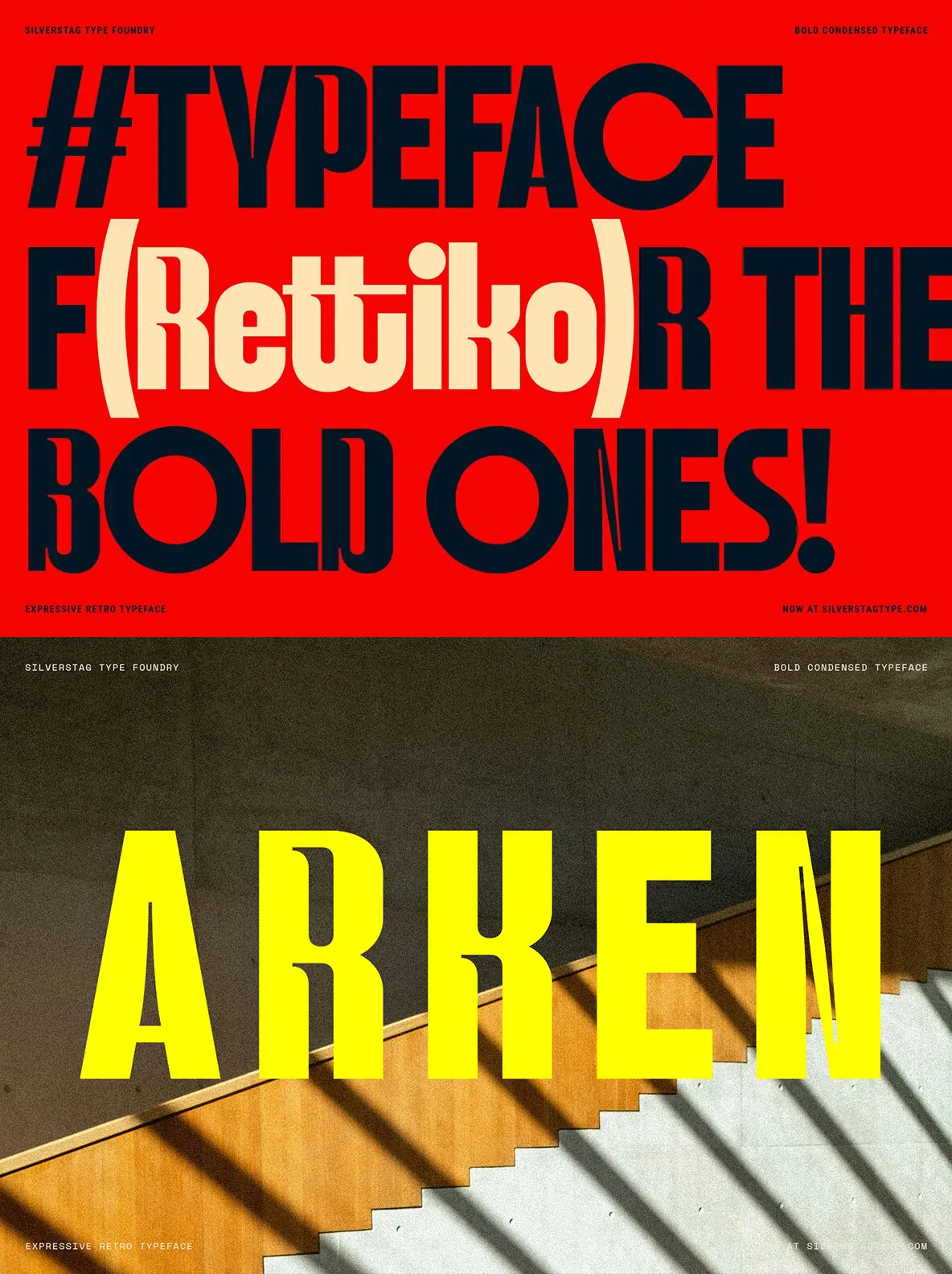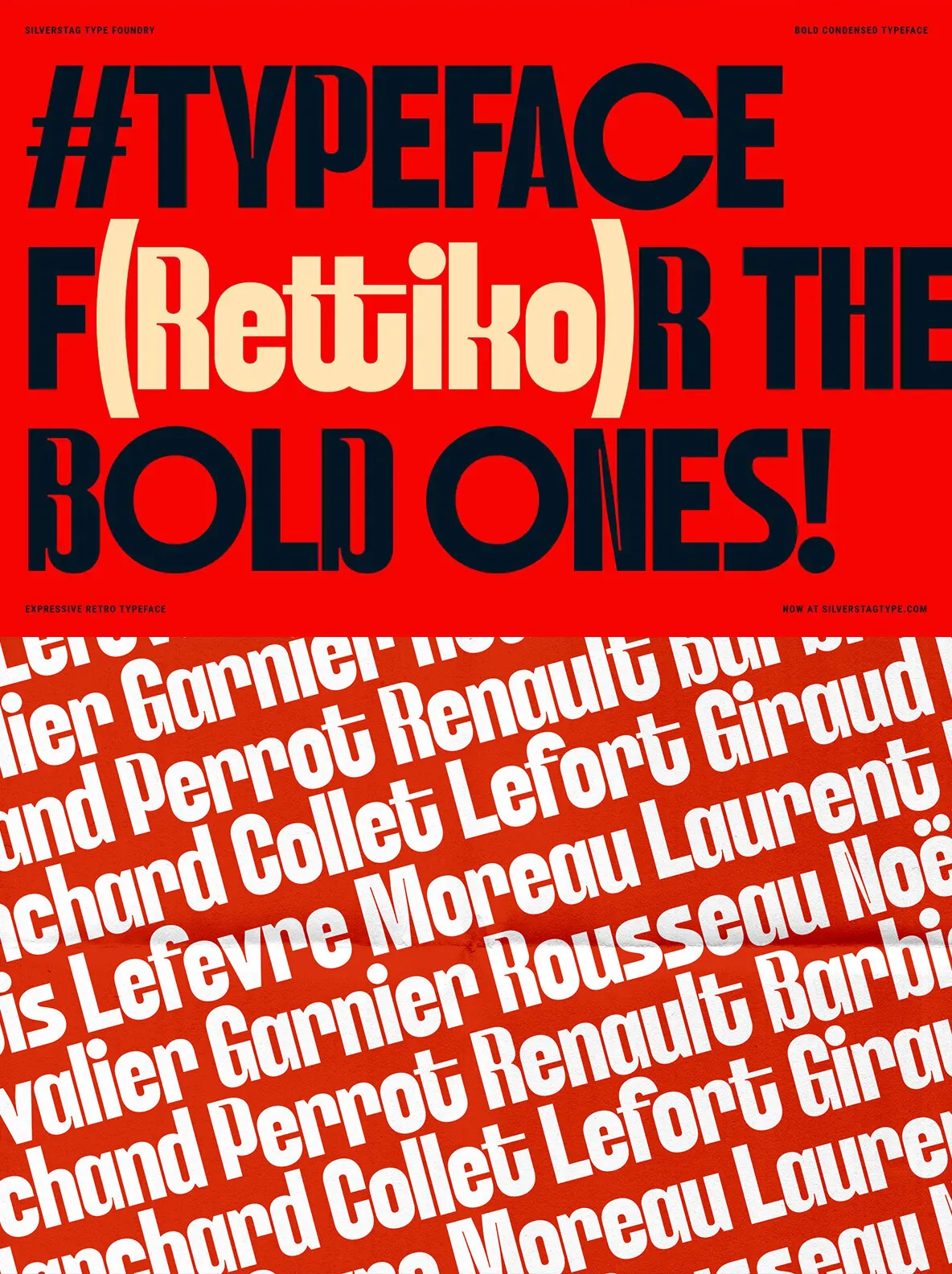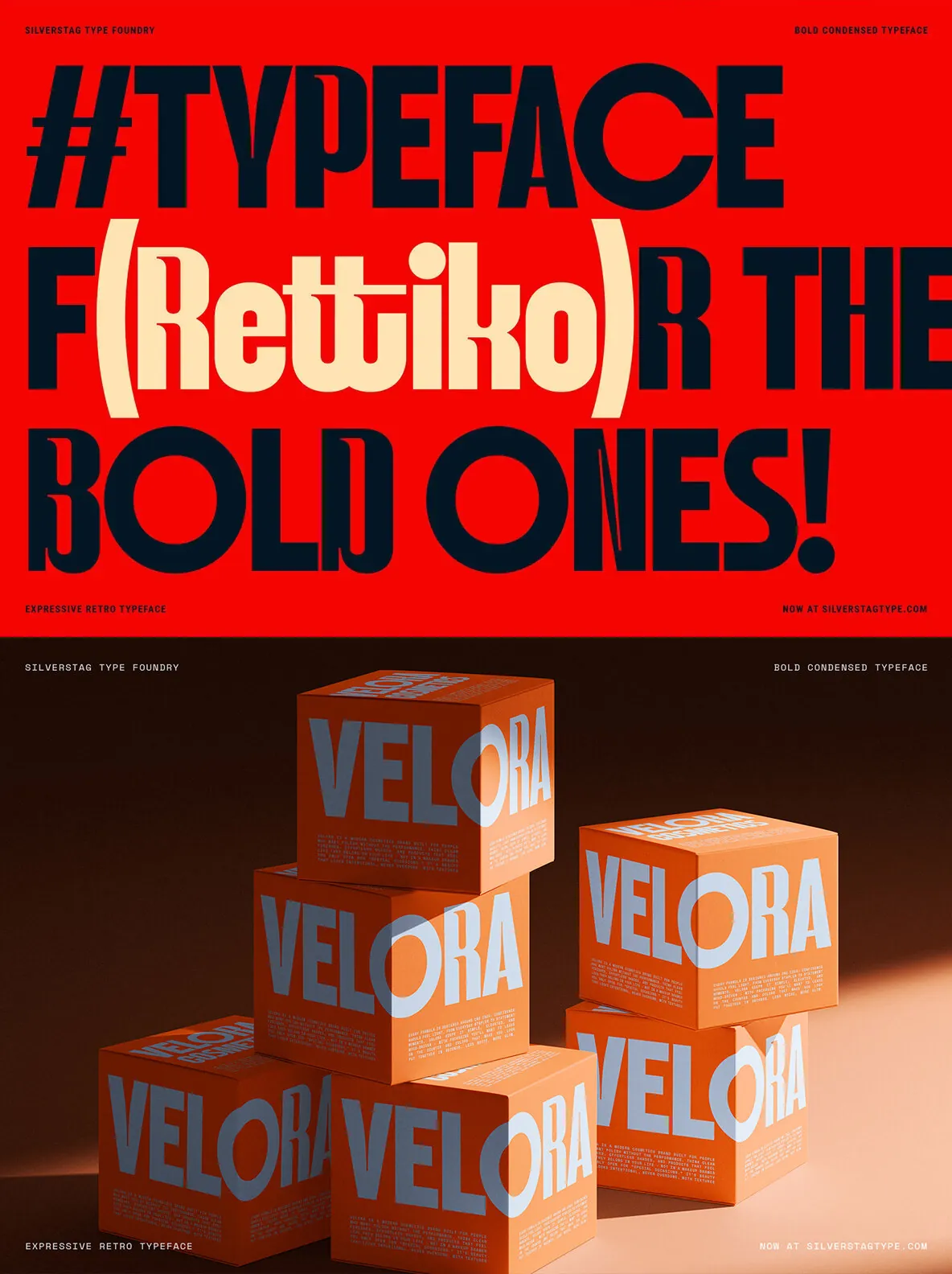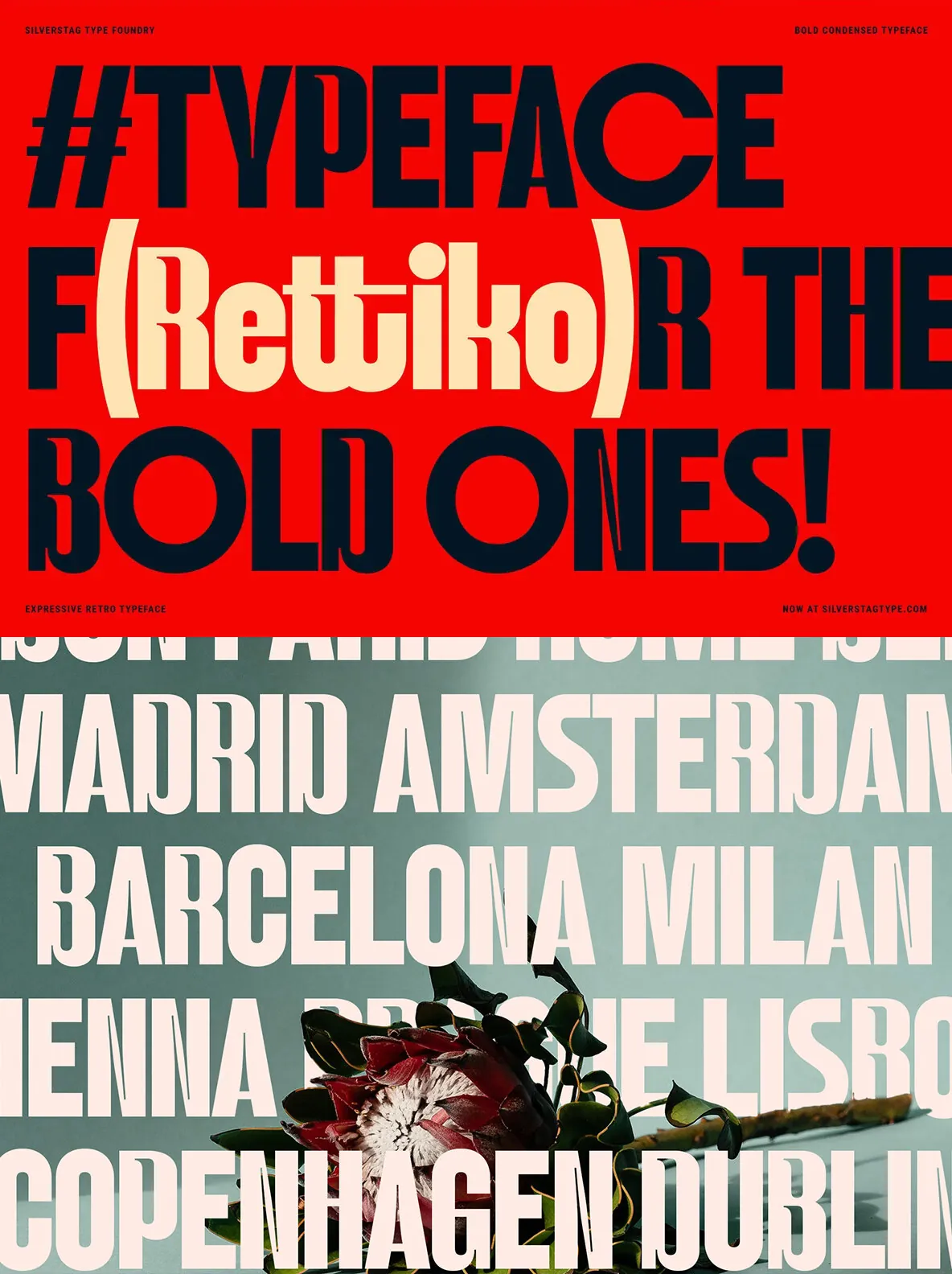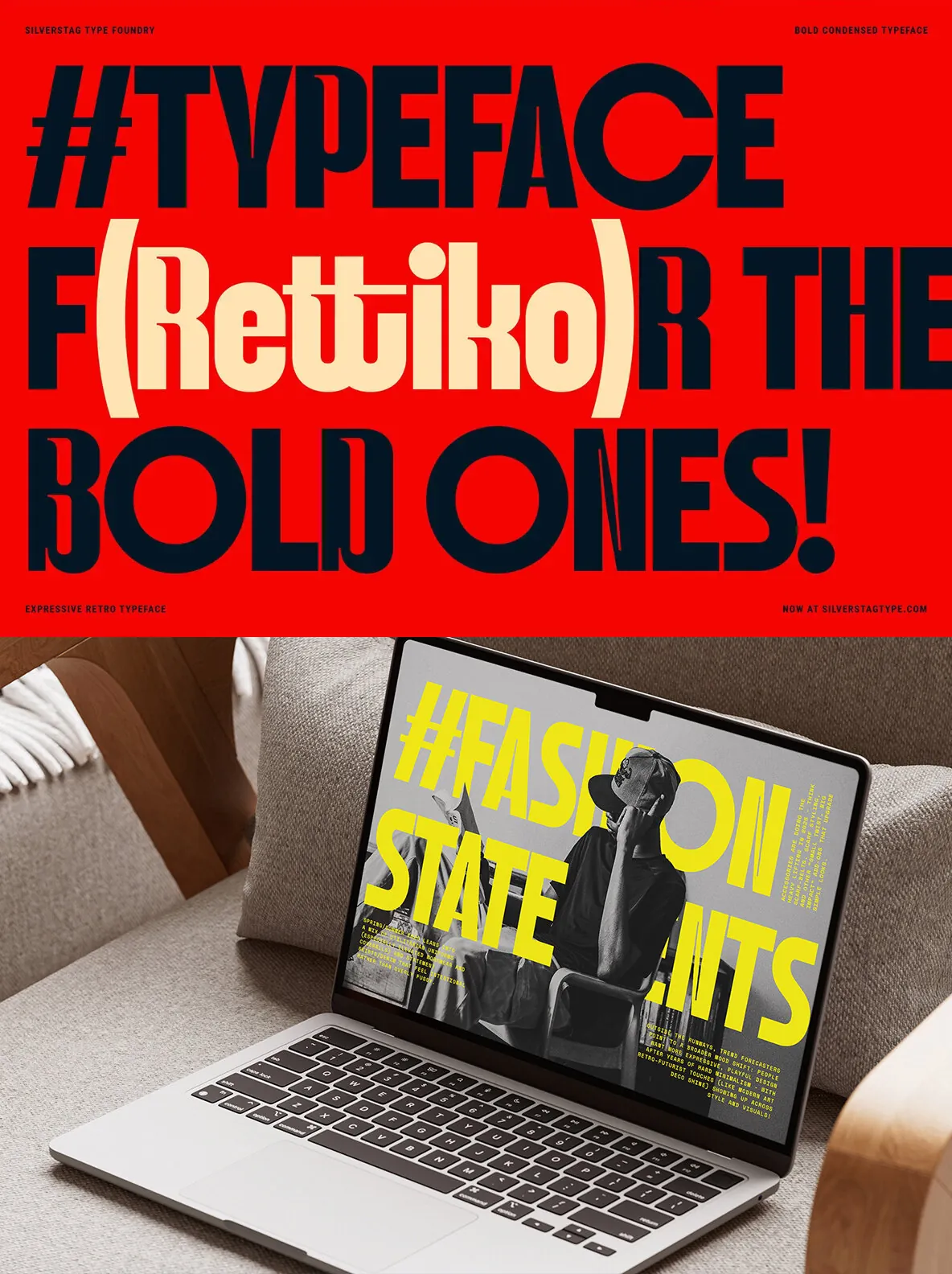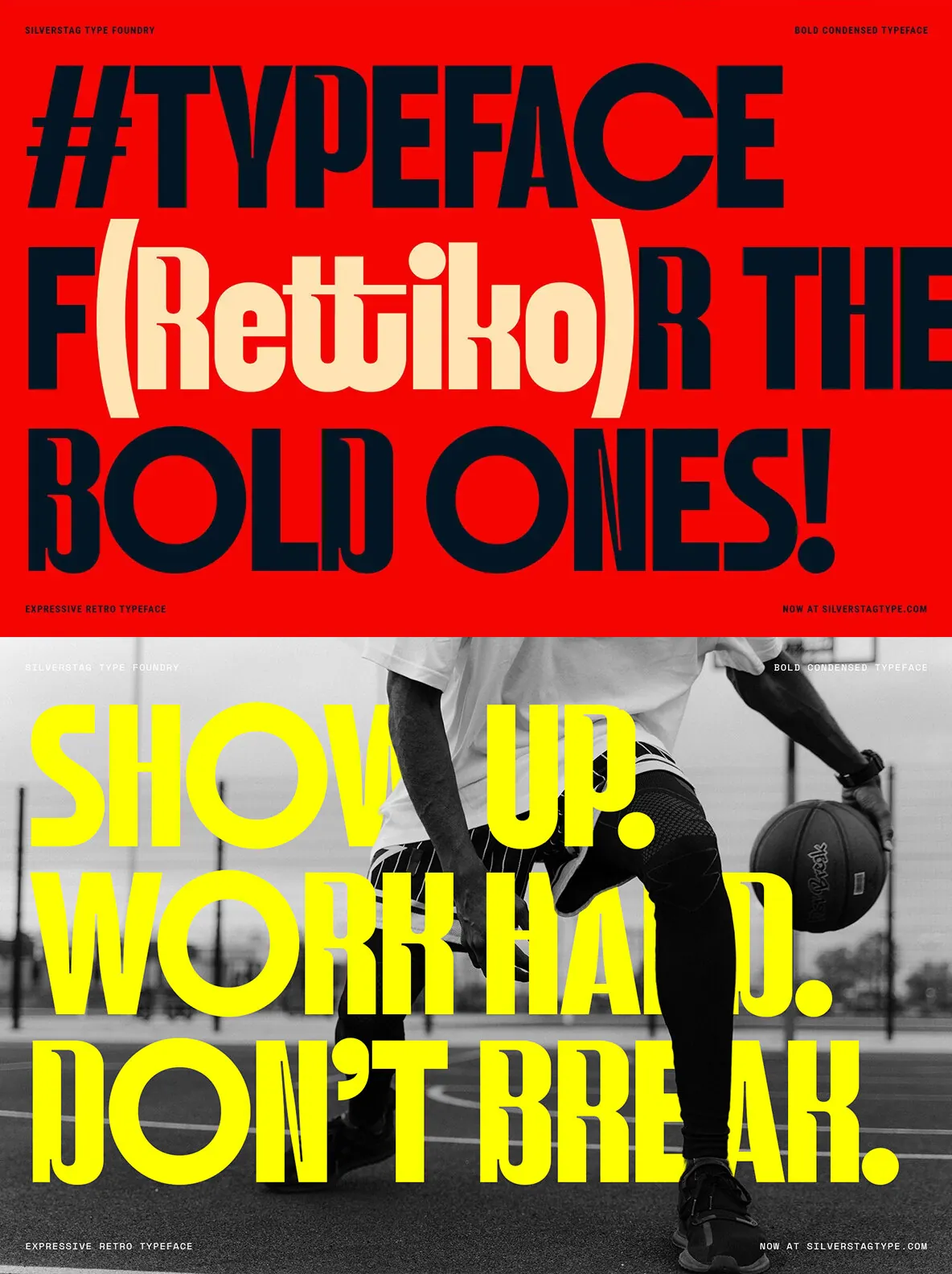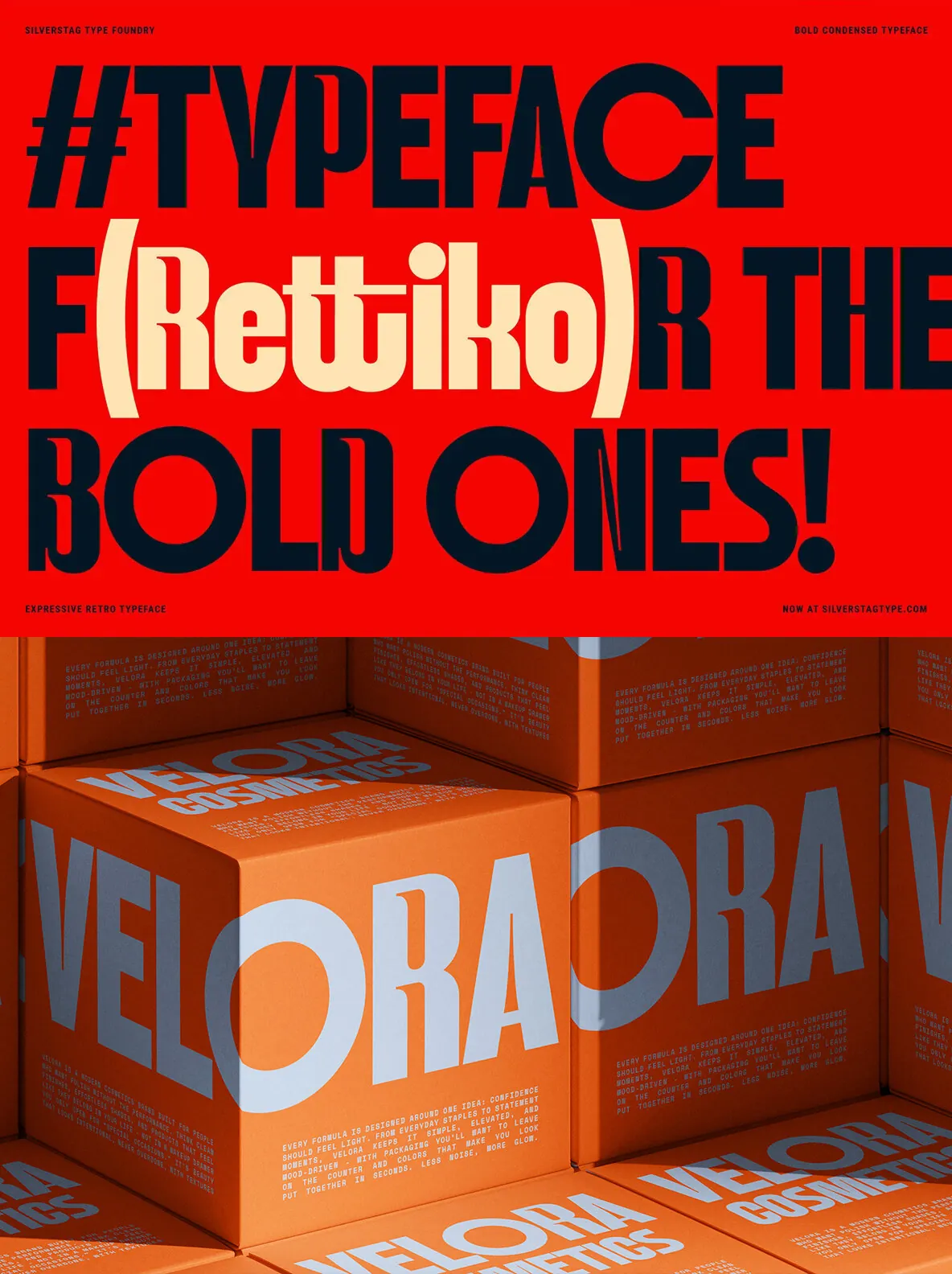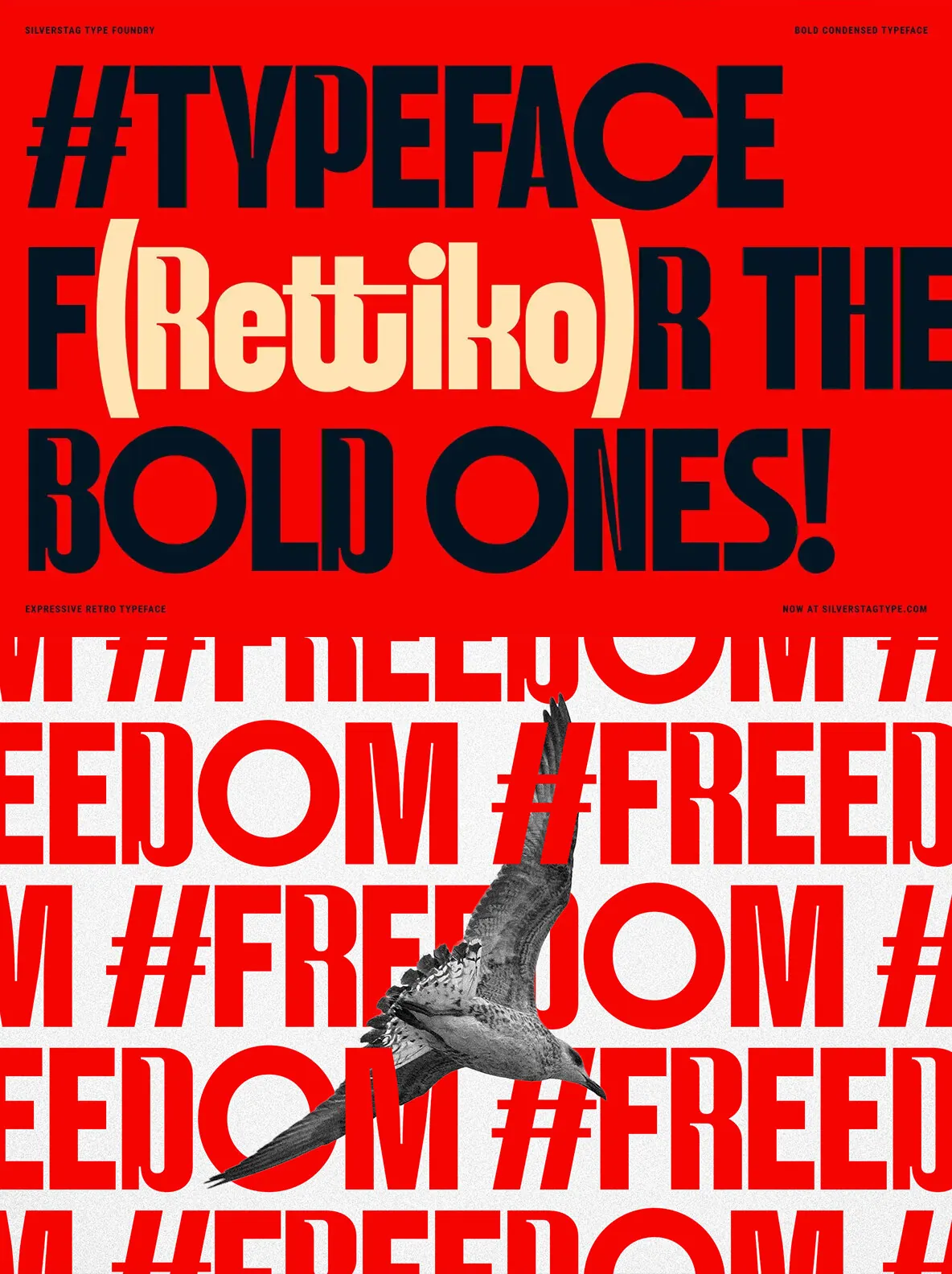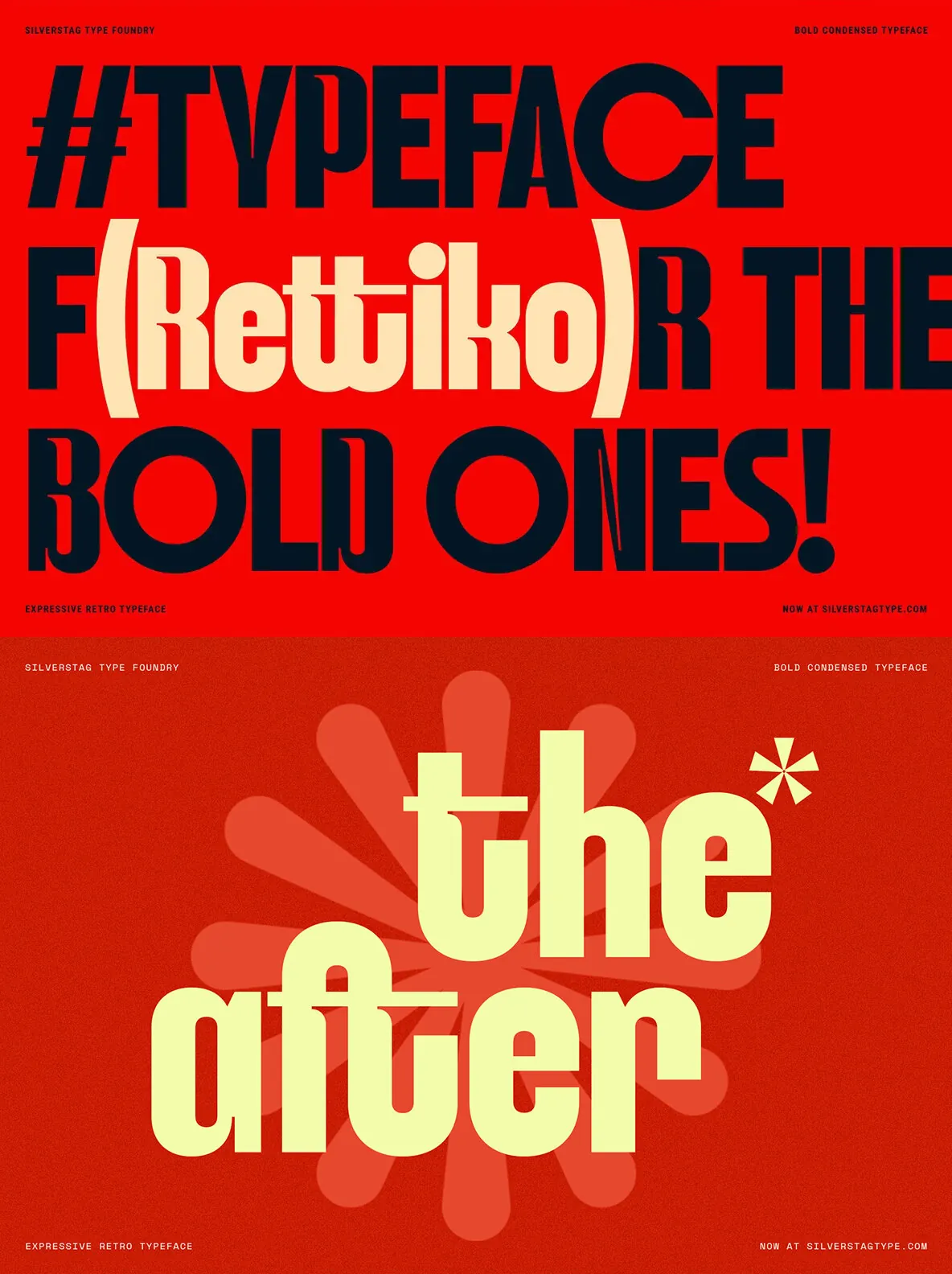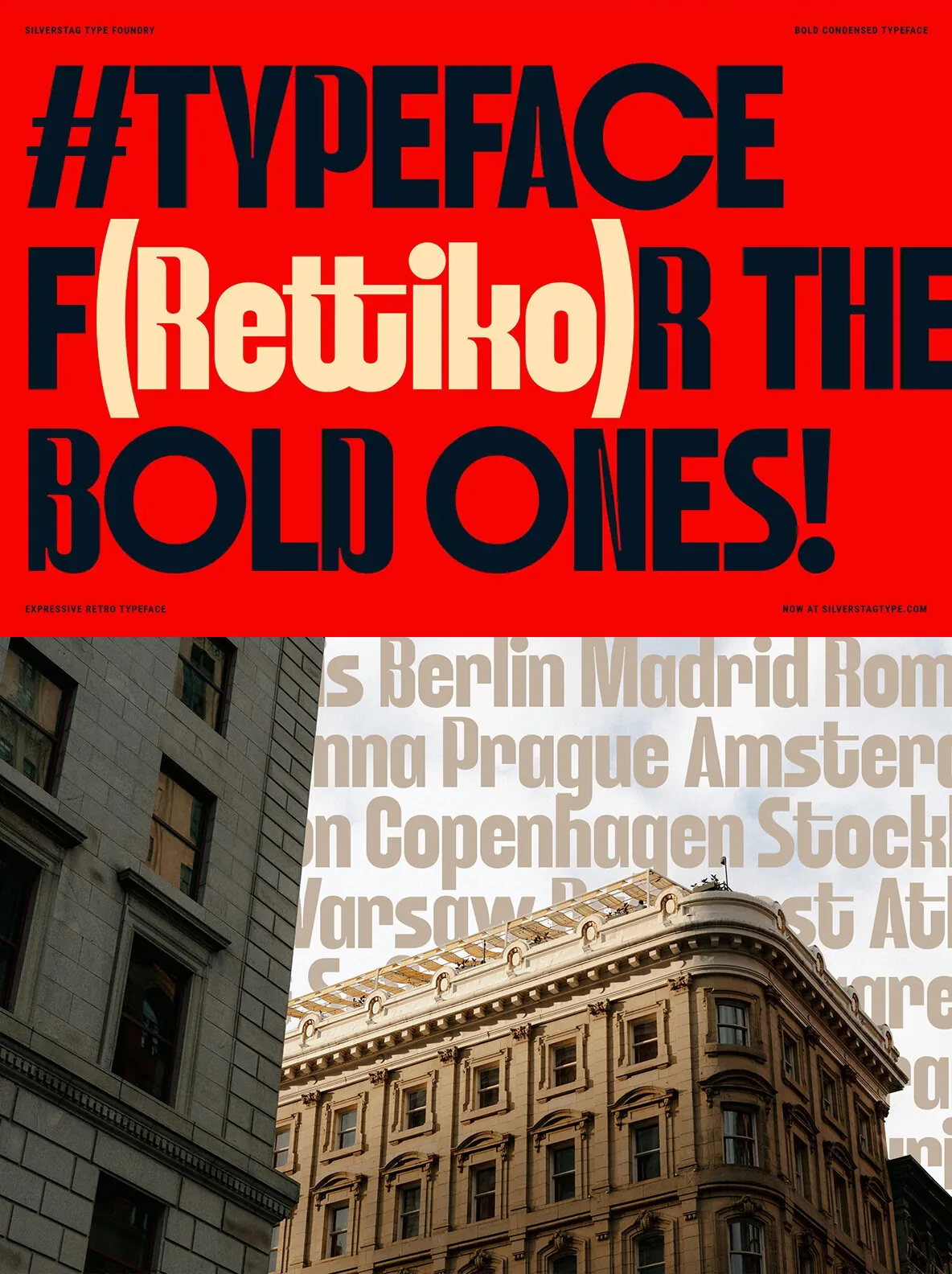
SLTF Rettiko — Condensed Impact, Retro Edge
SLTF Rettiko is a bold condensed display typeface for designers who prioritize expressive typography. It draws on retro display influences, then refines them for contemporary use. The result is a strong vertical rhythm, confident proportions, and a distinct presence that reads quickly and holds its ground in demanding layouts.
Its condensed form suits headlines, posters, fashion visuals, packaging, album artwork, and social media graphics—especially when space is limited but visual impact must stay high. Rettiko’s letterforms feel sharp and purposeful. They balance expressive character with precise construction, helping you keep consistency across different formats and design systems.
Included are uppercase and lowercase letters, numerals, punctuation, and multilingual support. This range makes Rettiko suitable for comprehensive branding systems while still excelling as a display font. It pairs effectively with minimal compositions, photography, and bold color schemes, lending authority to the design.
Bold condensed structure for impactful headlines
Sharp, deliberate letterforms ensuring clarity and consistency
Comprehensive character set including multilingual support
Versatile use in fashion, packaging, and digital media